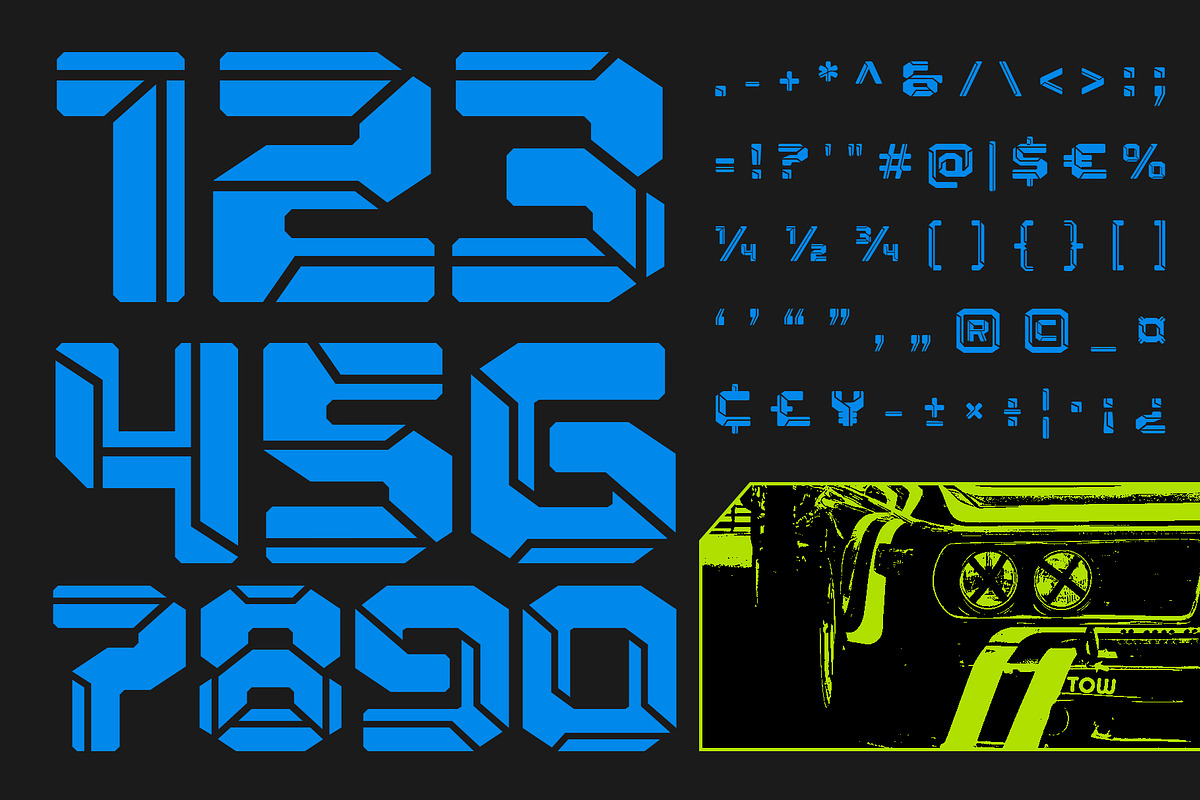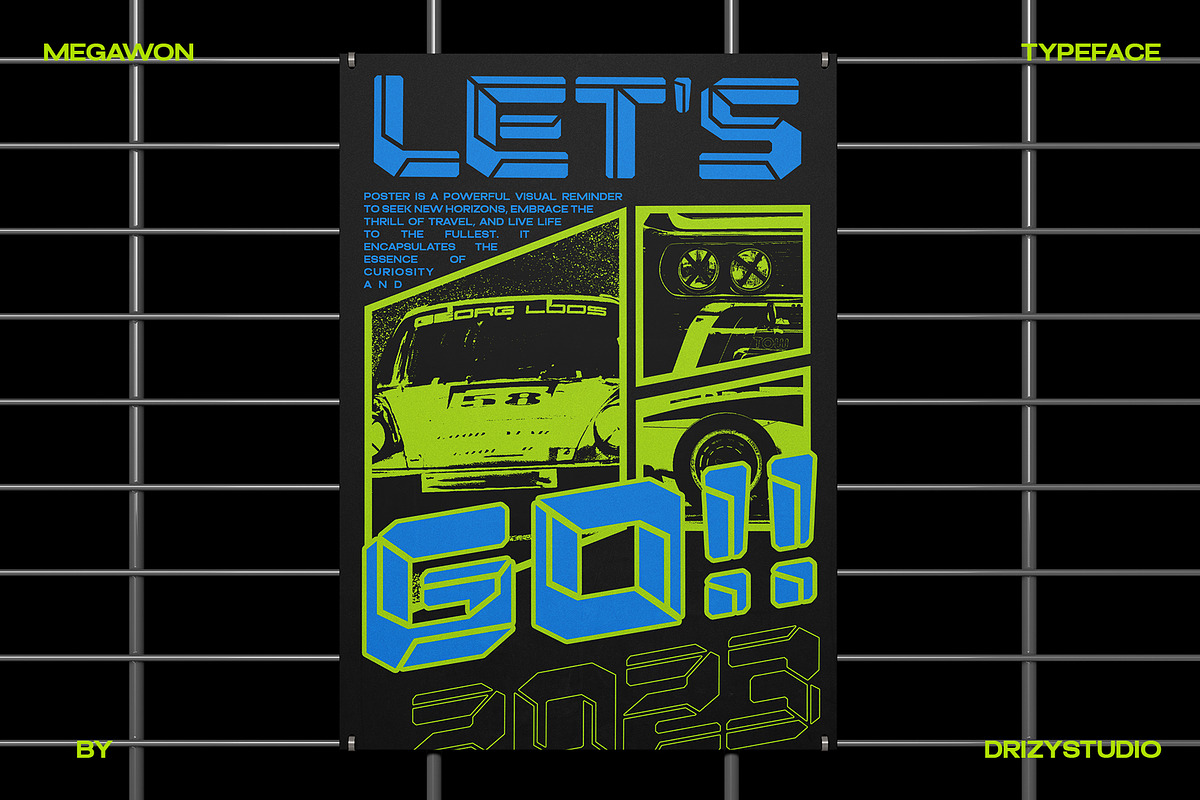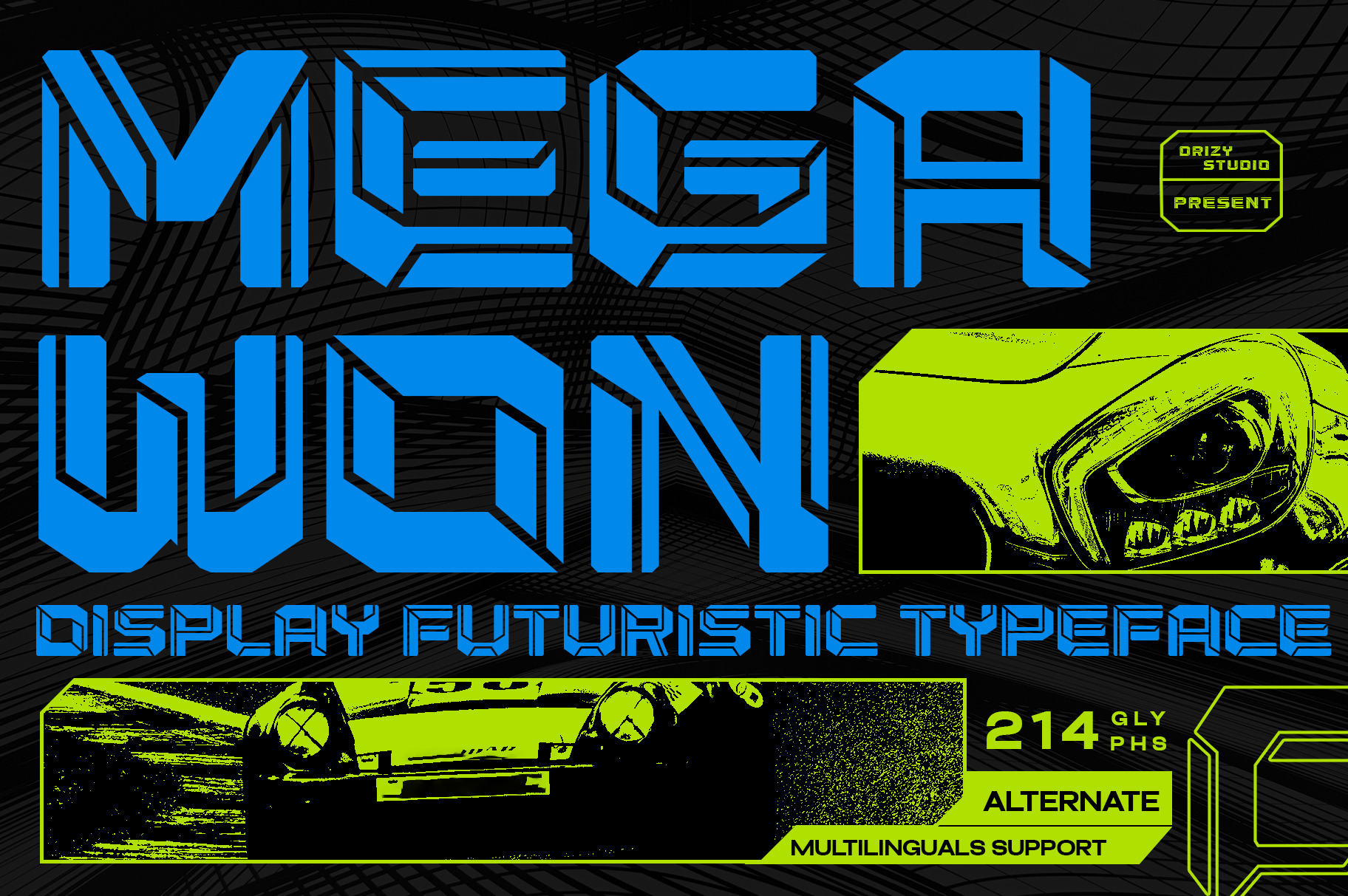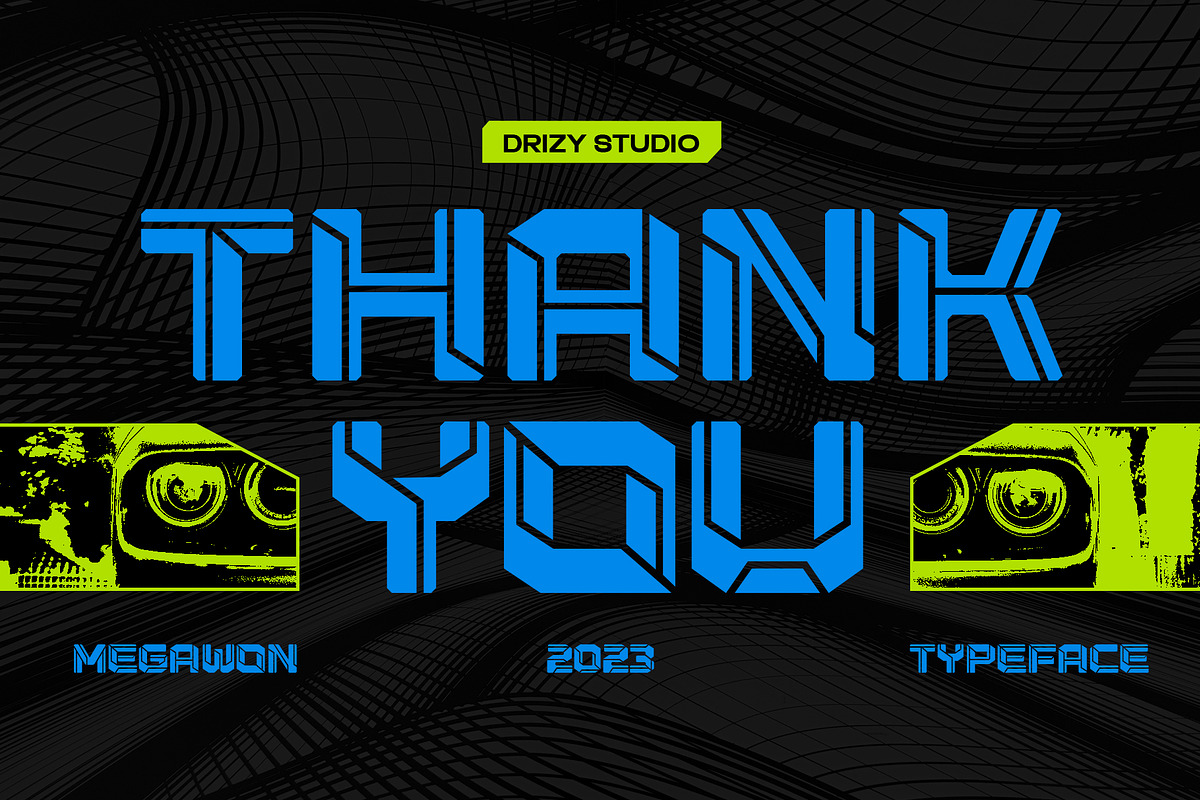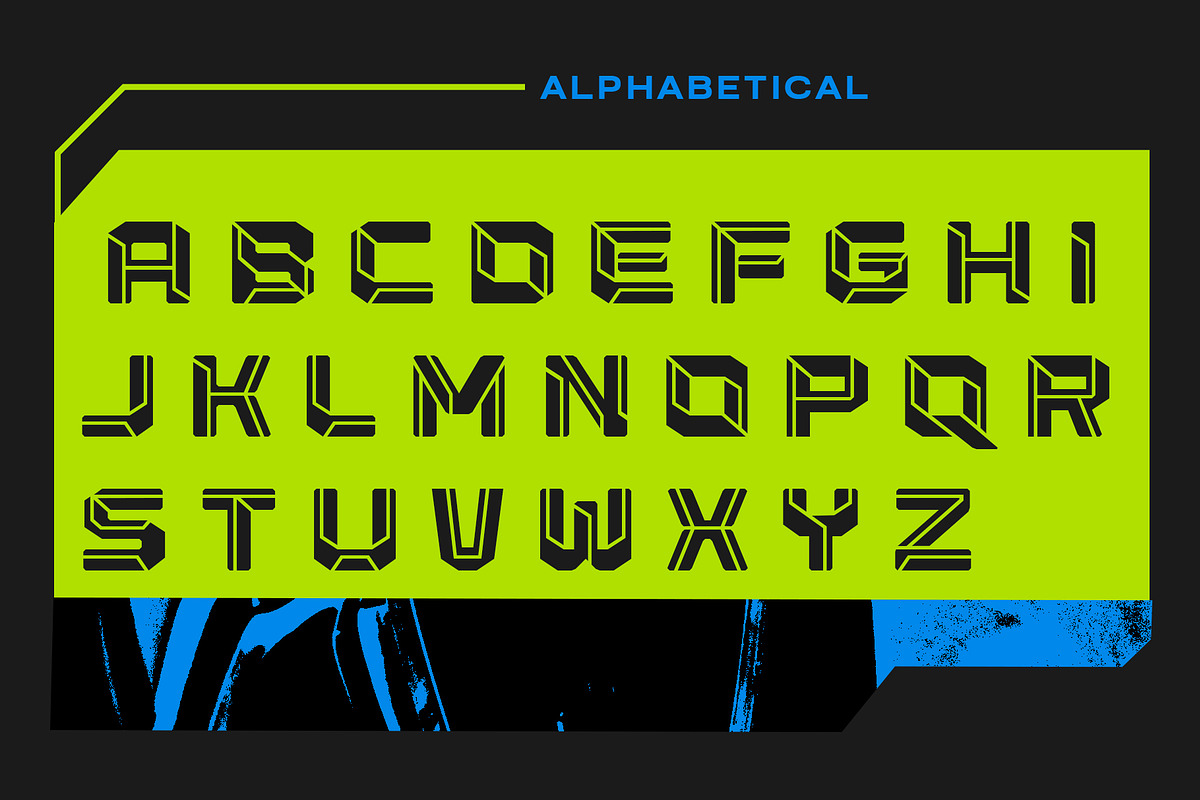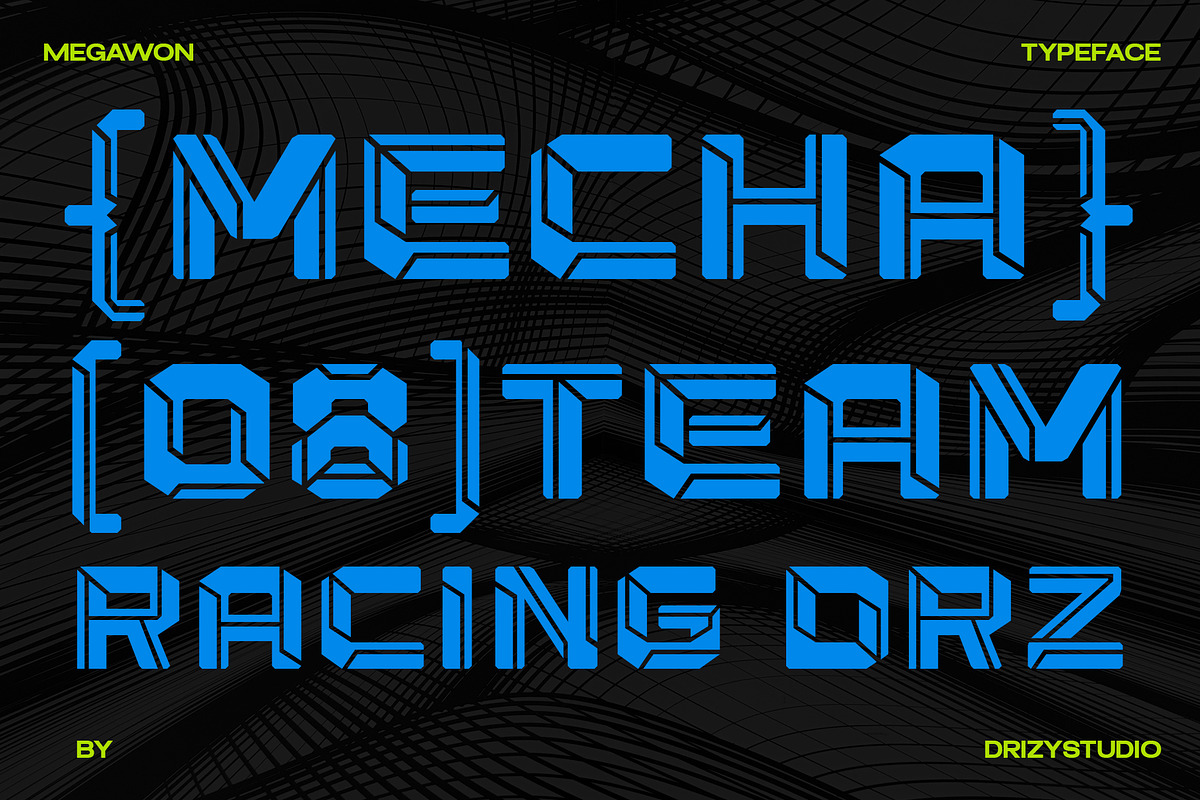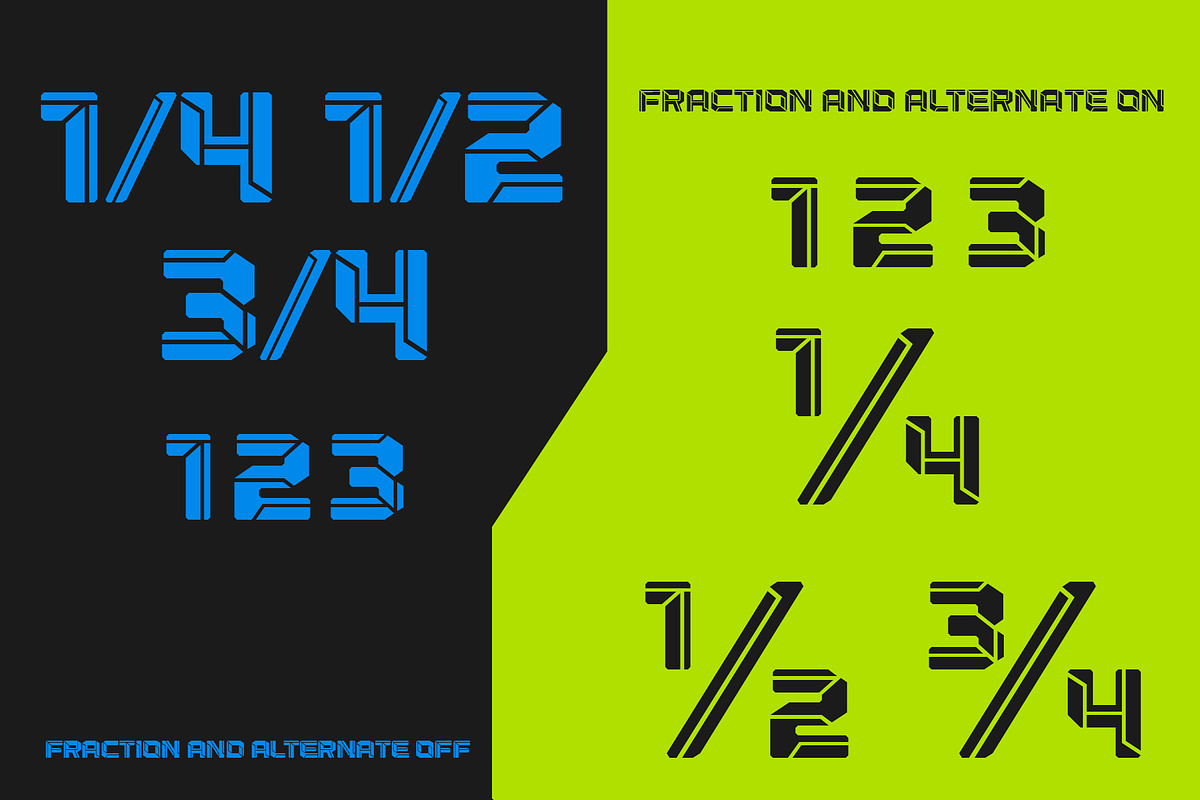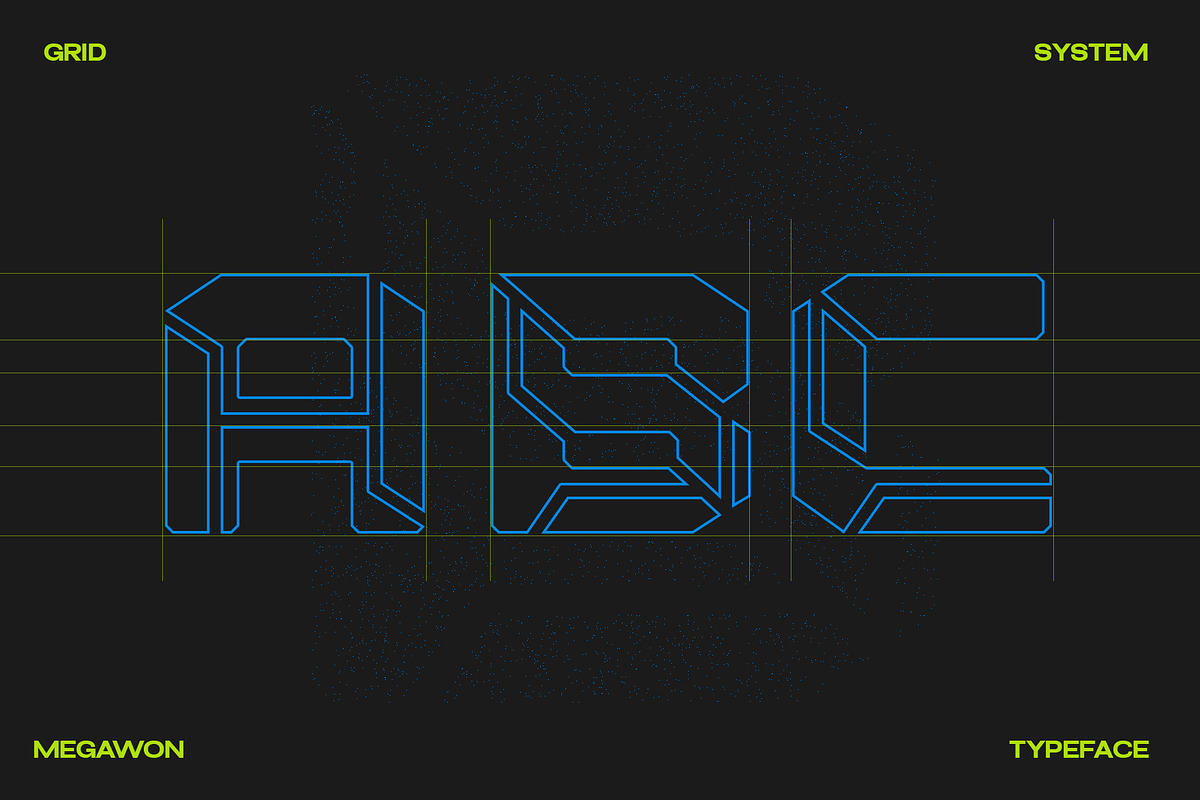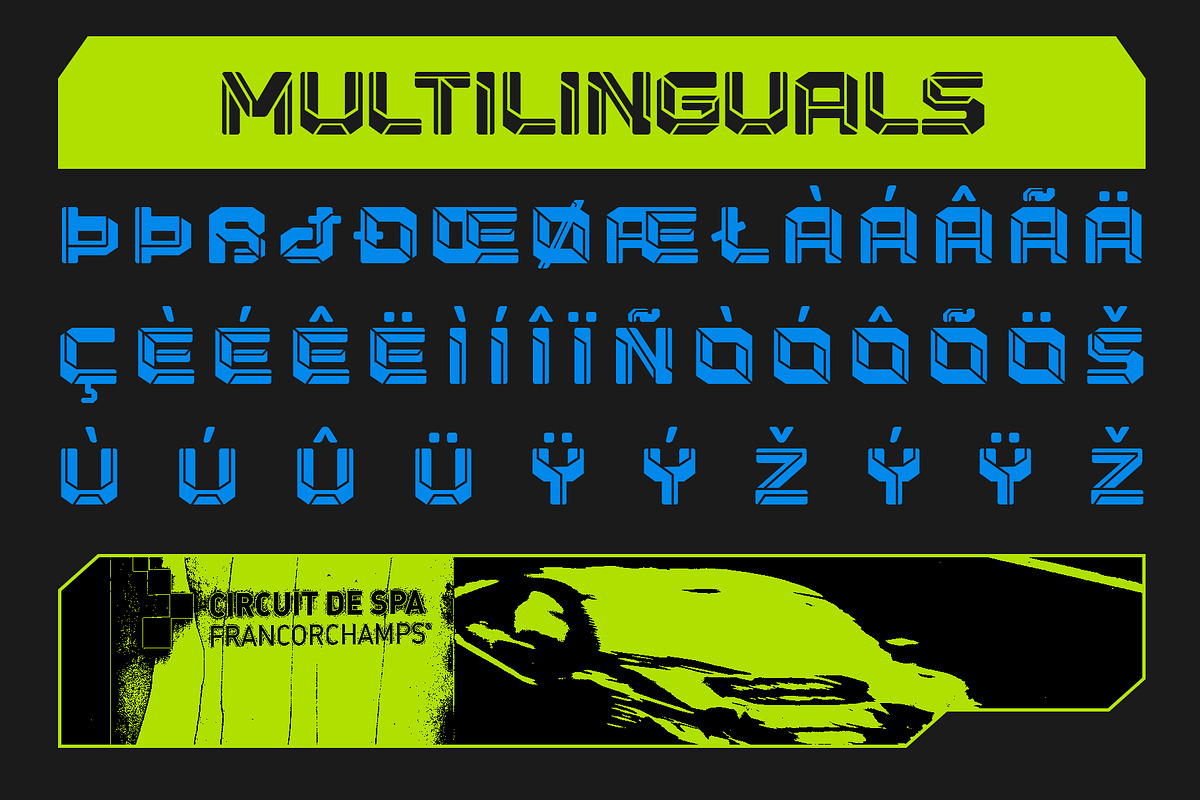
Megawon - Modern Sport Font
Megawon - Futuristic Modern Sport Font
Introducing Megawon, the ultimate choice for adding a cutting-edge and dynamic touch to your sports-related designs. This Futuristic Modern Sport Font is a bold and powerful typeface that captures the essence of the future and the intensity of modern athletic competitions. With its sleek lines, sharp edges, and a hint of sci-fi inspiration, Megawon is the perfect choice for sports teams, event promotions, posters, banners, and any project that requires a strong visual impact.
Megawon features: Character Set Punctuation & Numbers Multilingual Support